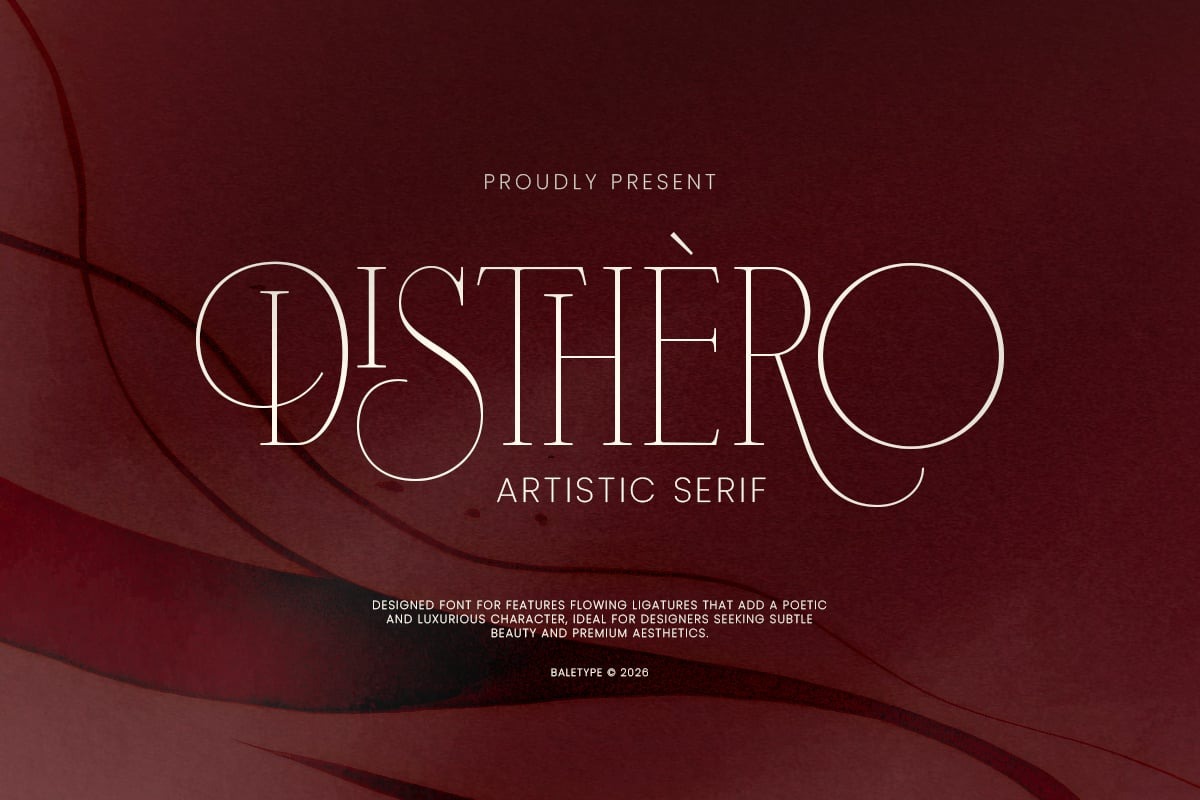
Disthero – Artistic Serif Font
Disthero – Artistic Serif Font is a flexible and reliable font created to fit multiple design needs, from branding and packaging to social media and editorial layouts. Disthero is a light and tall modern serif with alternate and ligatures. With modern and stylish touch, you can use this font for any purposes such as branding, logo, quotes, wedding invitations or any project that need to look classy and luxury.